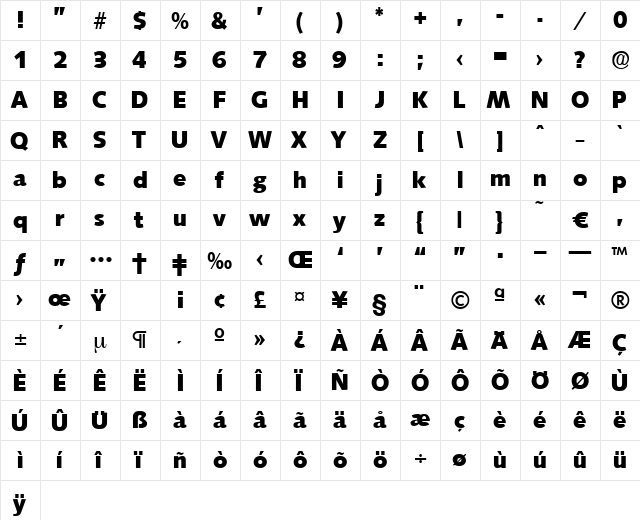
Saxony-Bold Regular
Design Context for Saxony-Bold Typeface
Saxony-Bold is a composed and adaptable typeface that performs quietly and consistently across a wide range of design contexts. Its bold stroke weight gives it real presence on the page.
Pro Tip: Pair Saxony-Bold with a font of contrasting weight or personality to build a more expressive typographic hierarchy.